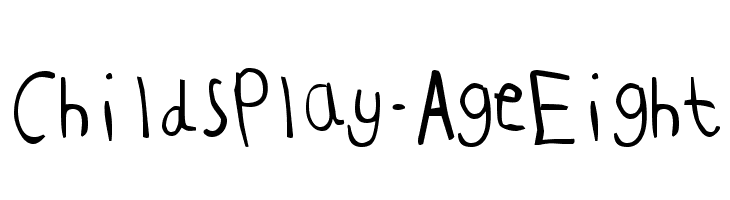
Bienvenue dans Polices Populaires — là où se rencontrent popularité et qualité. Voici les polices les plus téléchargées et utilisées cette année. Pour des choix sûrs (logos, web, social), commencez ici.
Chaque police phare se distingue par équilibre, lisibilité et polyvalence. Vous trouverez des sans‑serifs modernes, des scripts élégantes, des serifs vintage et des displays minimalistes.
A bold, modern sans-serif font with geometric shapes and uniform spacing.
A modern, geometric stencil font with bold, clean lines and cut-out sections.
A bold, italic serif font with high contrast and dynamic style.
A bold, distressed font with a grunge aesthetic and angular, geometric characters.
A bold, wide serif font with sharp serifs and high contrast strokes.
A bold, rugged font with a hand-carved appearance and irregular edges.
An elegant, flowing script font with ornate, calligraphic details.
A decorative font with dragon-themed uppercase letters and bold, gothic-inspired characters.
A bold, modern sans-serif font with clean lines and a friendly appearance.
A bold, thick-stroked font with a modern and playful style.
A bold, stencil-like font with cut-out sections and a strong industrial feel.
A bold, intricate blackletter font with sharp, angular lines and a historical feel.
A modern sans-serif font with a hollow, outlined style.
A playful, hand-drawn font with rounded edges and a casual, friendly style.
A bold, rounded font with a modern and friendly style.
A bold, modern font with a clean geometric design and uniform stroke width.
A jagged, eerie font with sharp, needle-like edges and a dripping effect.
A playful, hand-drawn sketch-style font with textured outlines.
A bold, brush-stroke font with dynamic, artistic flair.
A bold, playful font with a bubbly, rounded style.
An elegant script font with flowing, cursive lines and intricate flourishes.
A bold, geometric font with a modern, futuristic style.